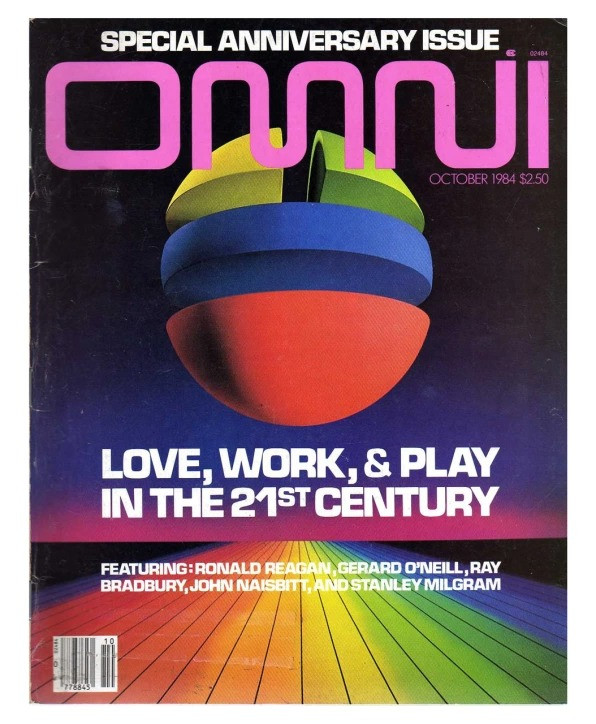
Omni Font
Omni was a science and science fiction magazine published in the US and the UK. It contained articles on science, parapsychology, and short works of science fiction and fantasy. It was published as a print version between October 1978 and 1995.
The font used for the Omni poster is OMNI MASTHEAD Font.